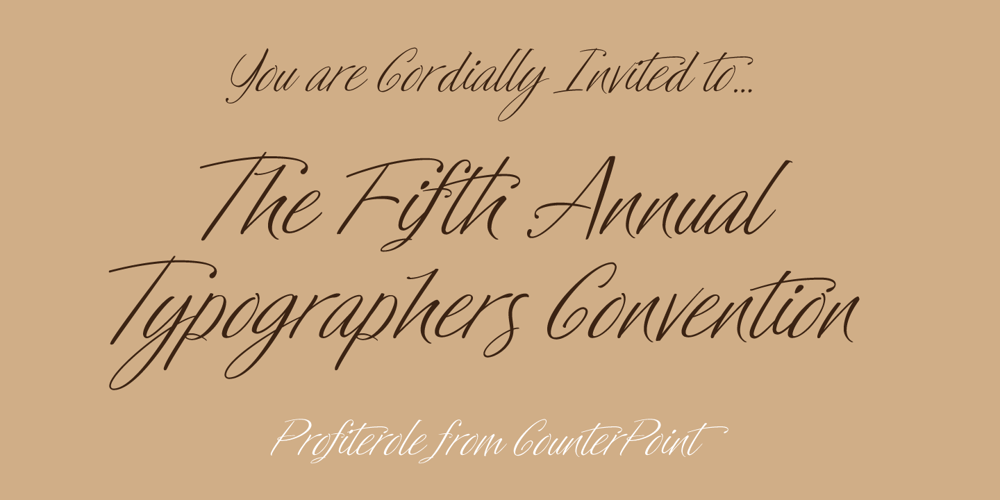
Profiterole Font Family was designed by Jason Anthony Walcott and published by CounterPoint Type Studio. Profiterole contains 1 styles and family package options. A light handwritten script font that is feminine and informal. Will lend a casual yet elegant feel to any design. Contains language support for both Latin-based and most Eastern European languages.